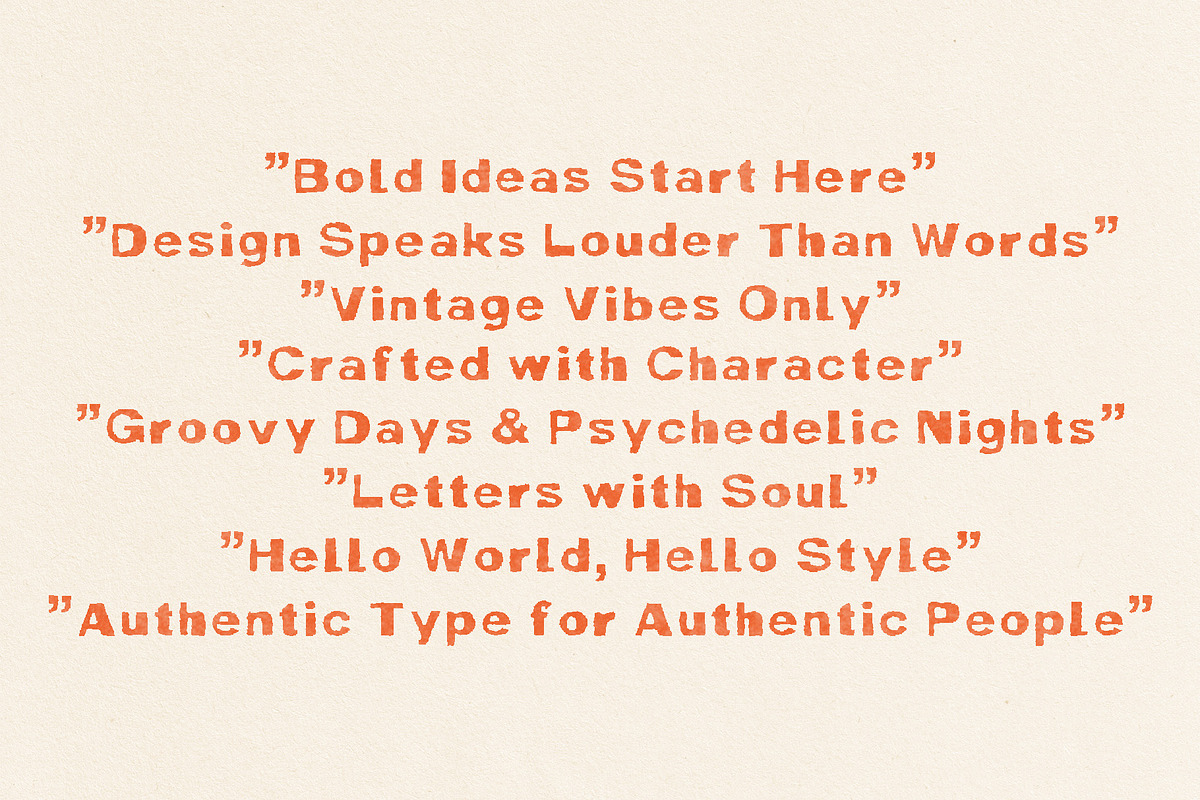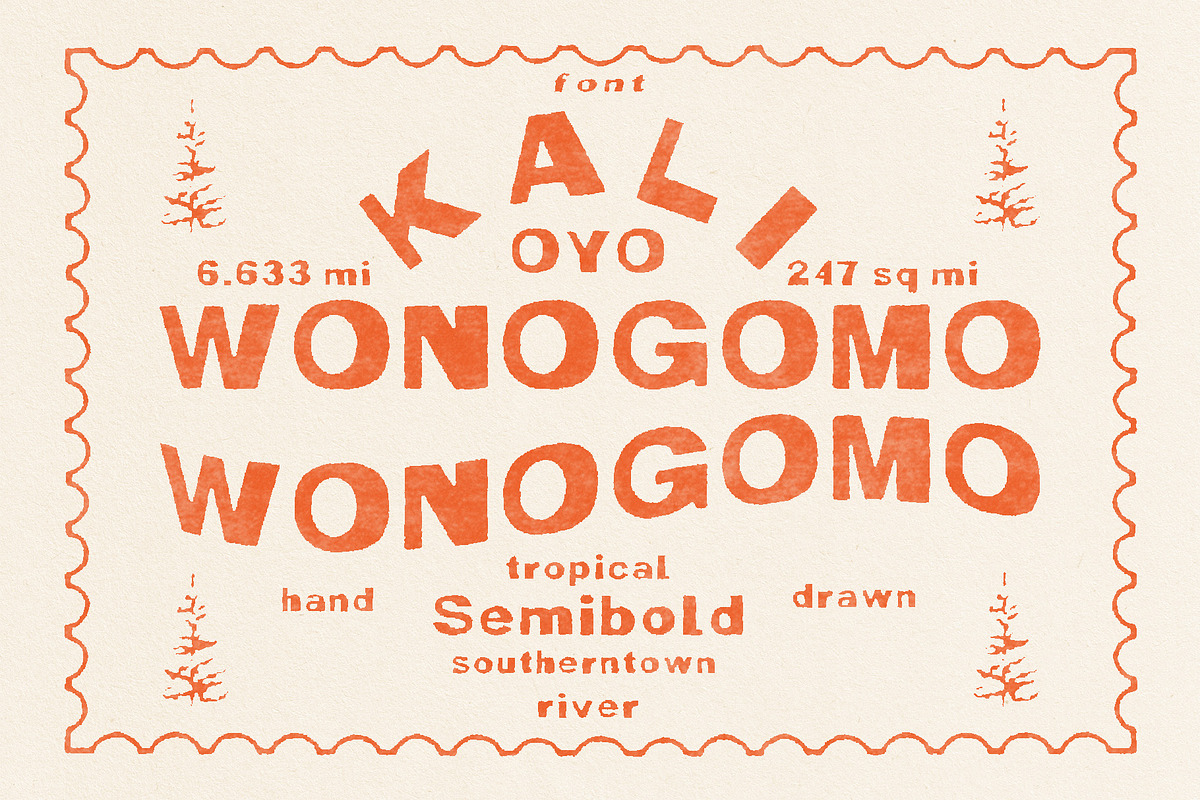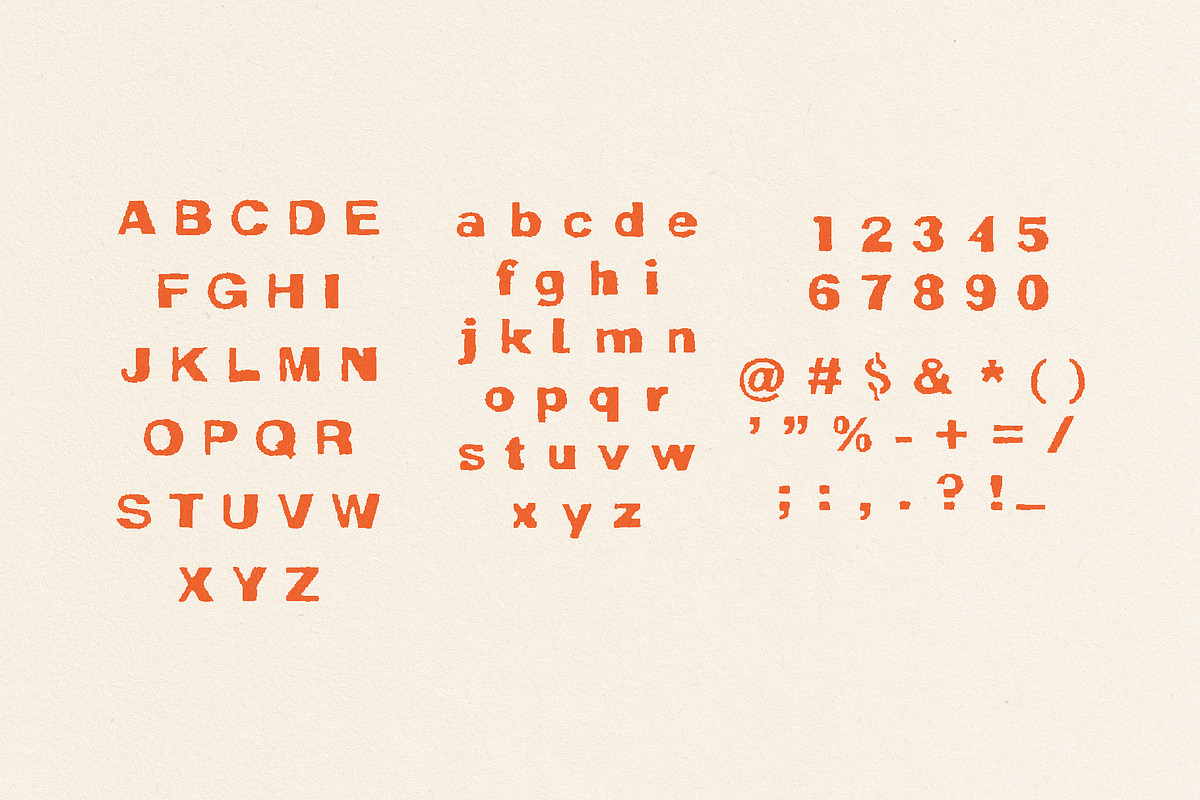
Wonogomo - Display type
WONOGOMO is a hand-drawn typeface that appears with a strong, casual character, and full of tropical warmth. Inspired by the southern rural atmosphere crossed by the Kali Oyo river, this font features semibold letterforms with organic textures that depict handicrafts and natural nuances. Each letter feels alive, suitable for projects that emphasize local elements, geographical uniqueness, and a contemporary vintage feel.
With a visual touch that resembles an old stamp or label, WONOGOMO is ideal for use in branding, posters, editorial designs, and product packaging that want an authentic and nostalgic impression.